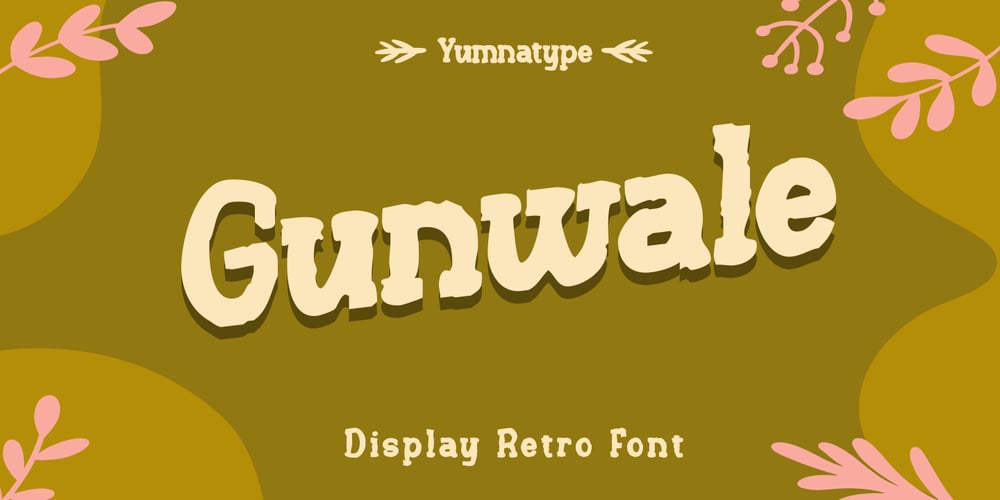
Gunwale Font Family was designed by Donis Miftahudin and published by Yumna Type. Gunwale contains 1 styles and family package options. Gunwale is a captivating display font that infuses your designs with a sense of playfulness and charm. The letter shapes in Gunwale are gently rounded, giving them a soft and friendly appearance. Each letter is meticulously crafted with attention to detail, adding a sense of personality and character to your designs.What sets Gunwale apart is its irregular outline, which adds an extra layer of visual interest and texture to the font. Instead of straight lines, the outlines of the letters have a playful and dynamic quality, adding to the font’s overall charm and whimsy. With its playful style and unique design elements, Gunwale is sure to make a statement in any project. In addition, enjoy the features here.Features: Multilingual Supports PUA Encoded Numerals and Punctuations Gunwale fits in headlines, logos, posters, flyers, branding materials, print media, editorial layouts, and many more designs. Find out more ways to use this font by taking a look at the font preview.Thanks for purchasing our fonts. Hopefully, you have a great time using our font. Feel free to contact us anytime for further information or when you have trouble with the font. Thanks a lot and happy designing.